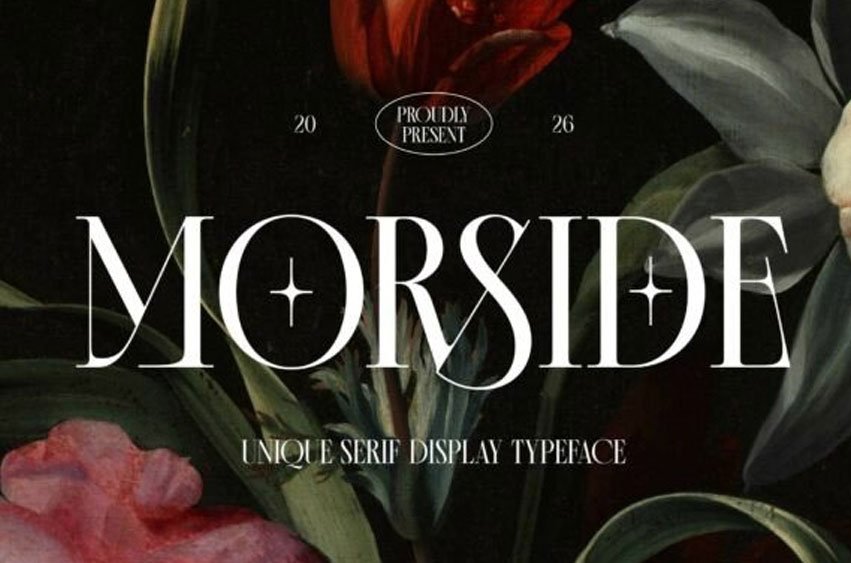
Morside Font
Morside Font is a refined modern serif typeface that blends timeless elegance with contemporary sophistication. Designed with high contrast strokes, graceful curves, and distinctive details, it creates a luxurious and artistic impression that feels both classic and fresh.
Perfect for luxury branding, fashion visuals, quotes, labels, magazine layouts, packaging, and wedding design, Morside brings a sense of class and confidence to any project. It’s more than just a typeface—it’s a statement of refined style.